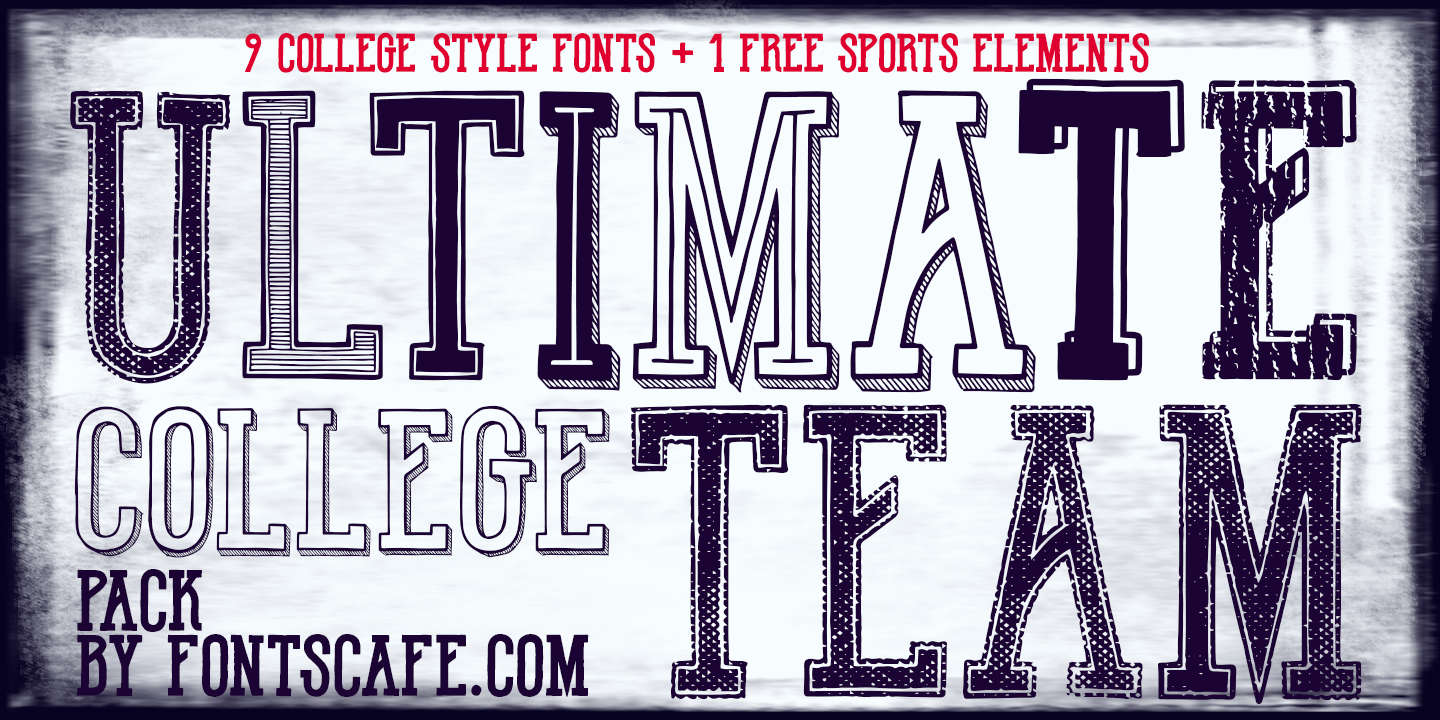
Ultimate College Team Font is perfect for university sports branding, college athletics merchandise, team jersey designs, campus event promotions, alumni association materials, student organization logos, collegiate marketing campaigns, sports bar signage, school spirit merchandise, and varsity team communications.
What makes Ultimate College Team Font exciting is its powerful athletic energy that perfectly captures the competitive spirit and collegiate pride found in America's most passionate university sports programs. This typeface features bold, muscular letterforms with strong geometric construction and athletic-inspired details that convey team strength, determination, and championship aspirations. The font's spirited personality and varsity aesthetic make it ideal for educational institutions and sports organizations seeking to project school pride, athletic excellence, and winning tradition.
Ultimate College Team Font family includes multiple weight variations: Regular, Bold, and Black options, each designed to maintain maximum impact and readability across jerseys, banners, and digital applications. The family features extended character sets with athletic symbols, team numbers, and collegiate ornaments perfect for comprehensive sports branding systems.
College athletic departments and sports merchandise companies consistently choose Ultimate College Team Font Free Download for projects requiring authentic collegiate appeal and championship-level impact. The font's athletic character excels in applications targeting students, alumni, and sports fans who live and breathe school spirit. Whether you're designing for Division I athletics, campus recreation programs, or collegiate merchandise, this dynamic typeface delivers the team pride and athletic excellence that builds lasting connections with passionate college sports communities and championship-driven athletic programs.